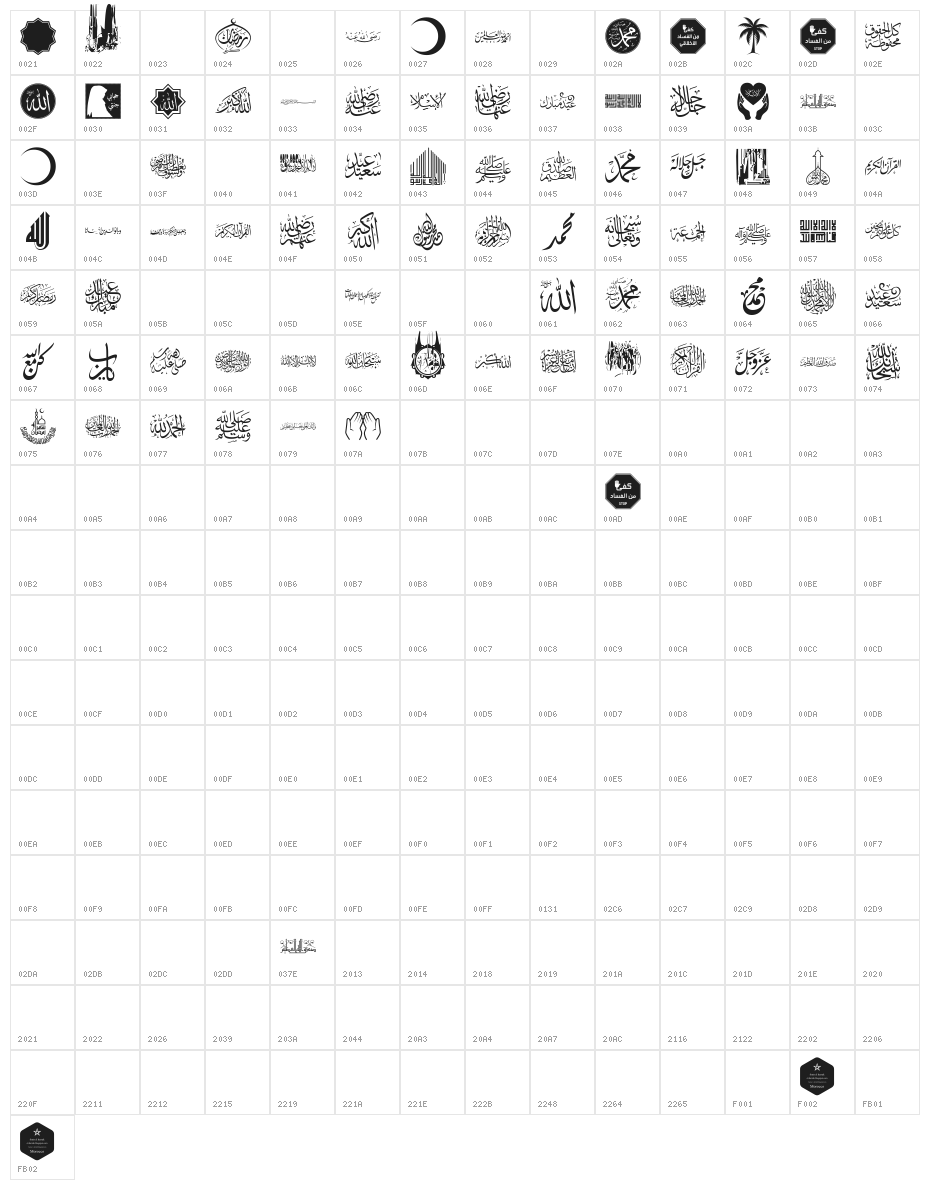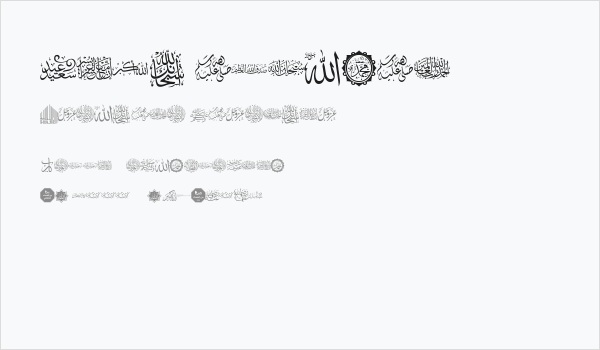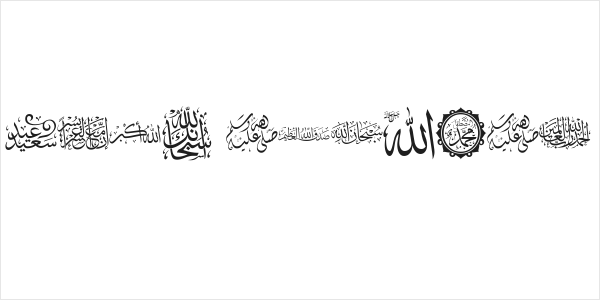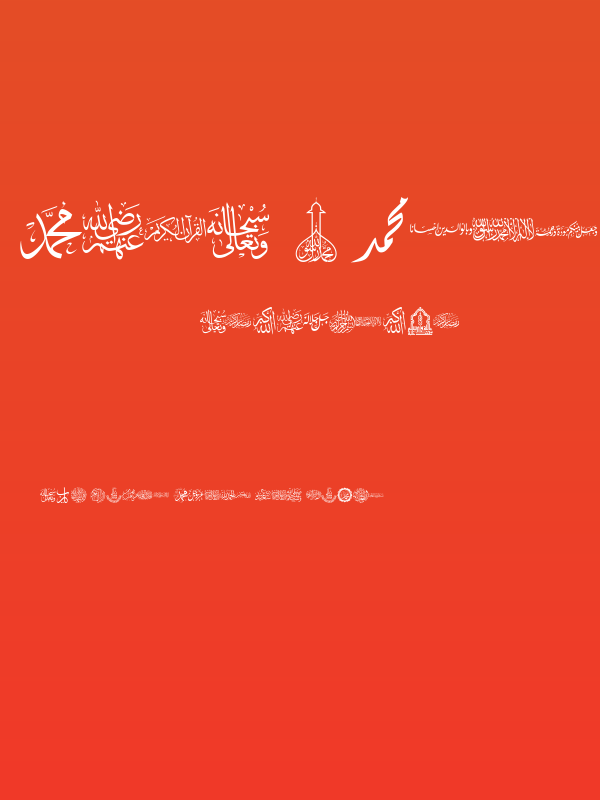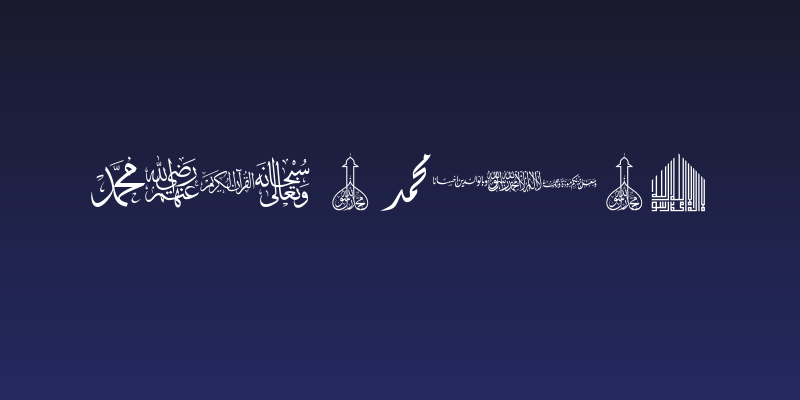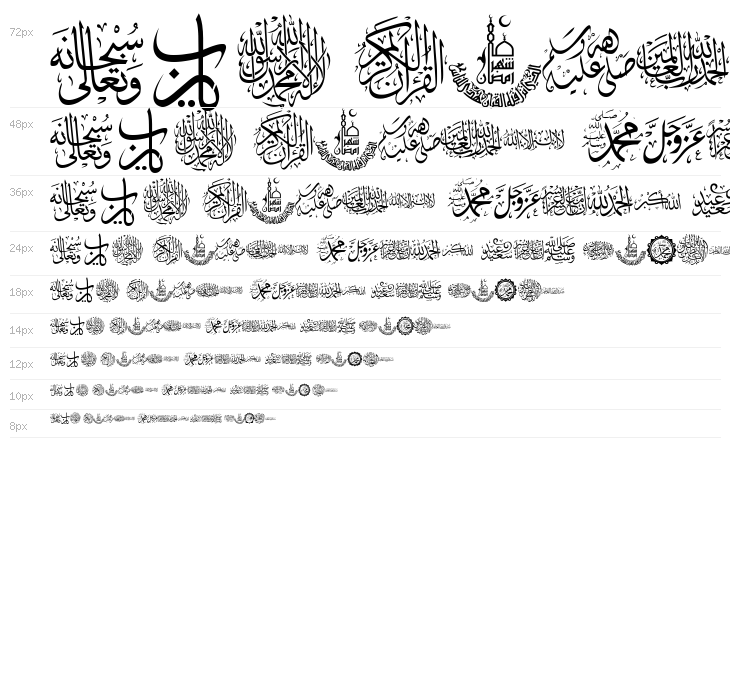
font islamic Font
font islamic Description
The image contains various examples of Islamic calligraphy, showcasing intricate and decorative Arabic script styles.
| Use Case | Decorative art, religious texts. |
| Proposed Projects | Religious texts, decorative art, cultural projects. |